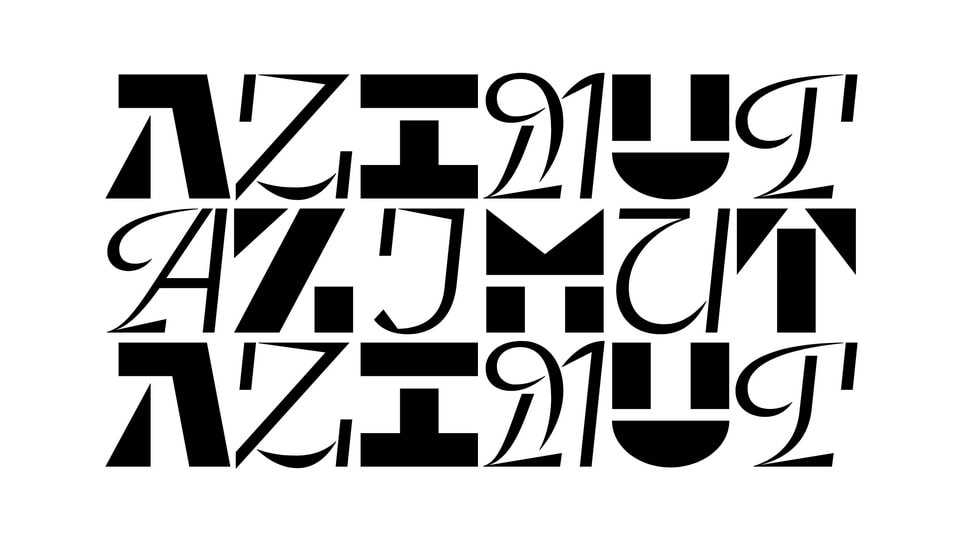
Download Azimut font, an original, multi-style typeface commissioned by the city of Strasbourg to celebrate its designation as UNESCO World Book Capital in 2024.
Designer: Mathieu Réguer